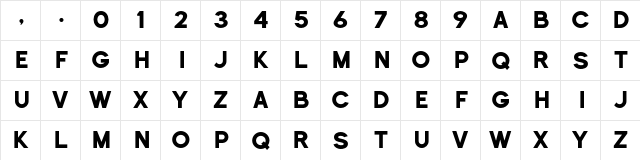
Historical Sans
| Style | Sans |
| Foundry | Runsell Studio |
| Designer | Edi Gunawan |
Design Context for Historical Typeface
Historical takes a measured approach to typography — its balanced proportions and neutral character make it a reliable workhorse for both digital and print work.